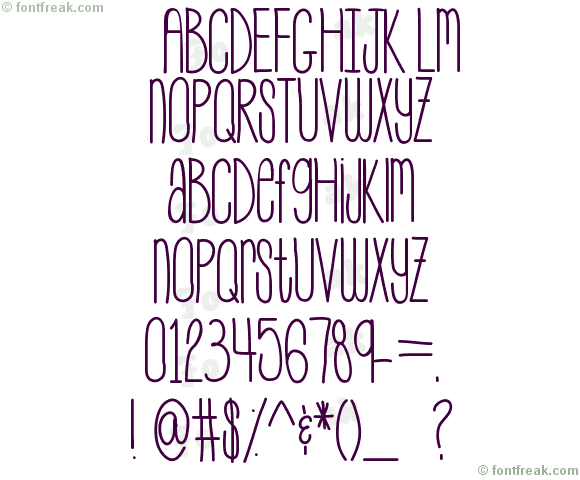
MySkinnyJeans
About MySkinnyJeans
MySkinnyJeans by Vanessa Bays is a captivating display font that exudes a playful yet sophisticated vibe, making it a standout choice for various design projects. This unique typeface features elongated letterforms with a slender, tall appearance, capturing the essence of contemporary design trends. The stroke weight is consistent, providing a clean and modern aesthetic, while the subtle contrast between thick and thin lines adds a touch of elegance. The spacing between the characters is well-balanced, ensuring optimal legibility even at smaller sizes.
This font is particularly well-suited for creative applications such as fashion lookbooks, trendy restaurant menus, and stylish event invitations. Its playful nature makes it an excellent choice for branding projects targeting younger demographics, while its elegance allows it to shine in more upscale contexts, such as wedding invitations. Graphic designers will appreciate its versatility, as it can be adapted to various styles, from minimalist to vibrant and bold designs.
The target audience for MySkinnyJeans includes graphic designers, small business owners, and content creators who seek to elevate their visual communication with a unique typeface. Whether you are crafting social media graphics or designing promotional materials, this font can help convey a sense of modernity and style.
Author Vanessa Bays